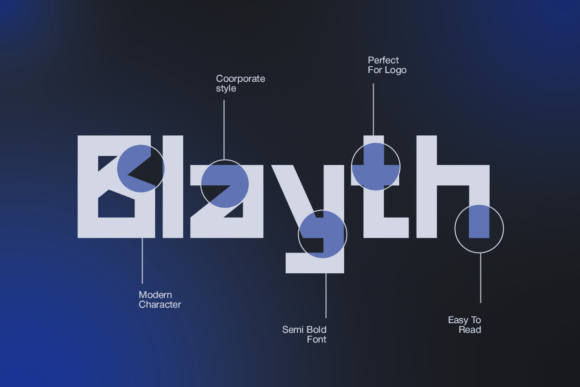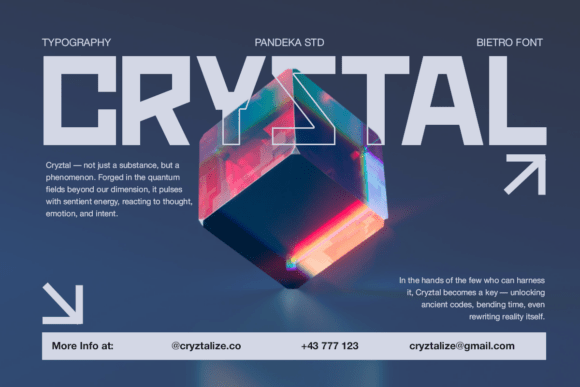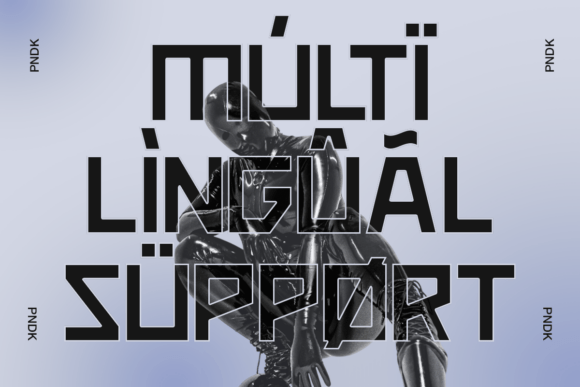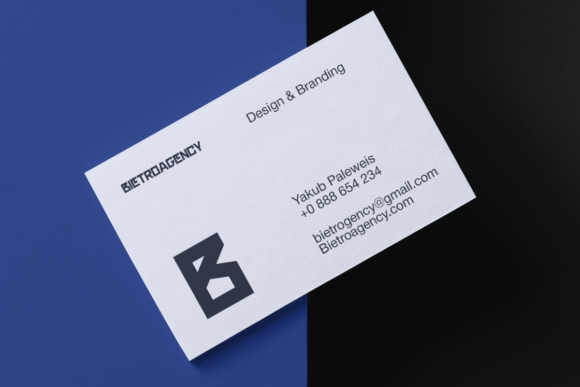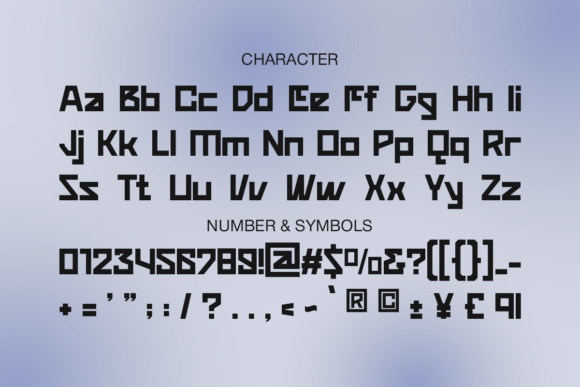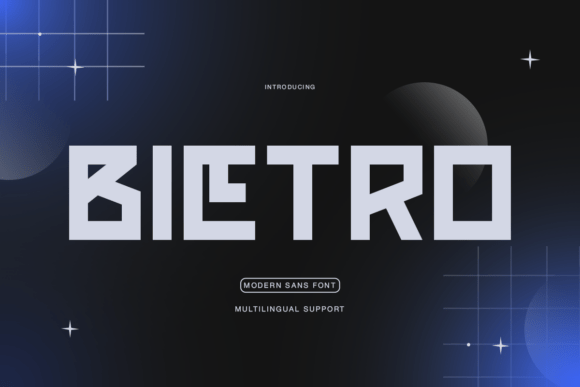
Bietro Font: The Ultimate Futuristic Modular Display Font
In the realm of typography, few fonts have managed to capture the essence of a futuristic, high-tech aesthetic quite like Bietro. This bold and experimental display typeface is inspired by digital grids, modular systems, and tech-forward designs, making it the perfect choice for designers and crafters looking to add a touch of futurism to their projects.
The Design Philosophy Behind Bietro
Bietro’s design is rooted in sharp corners, angular cuts, and a geometric structure that gives it a unique, cutting-edge feel. The font’s monospaced spirit and high-tech appeal make it an ideal choice for a wide range of applications, from sci-fi interfaces and gaming titles to streetwear branding and experimental visuals.
Key Features of Bietro Font
- Uppercase and Lowercase Letters: Bietro includes a comprehensive set of uppercase and lowercase letters, ensuring that you have all the characters you need to create stunning text-based designs.
- Numerals, Punctuation, and Symbols: The font also includes a range of numerals, punctuation marks, and symbols, giving you the flexibility to create complex designs and layouts.
- Multilingual Support: Bietro supports multiple languages, making it an excellent choice for designers and crafters working on international projects.
Use Cases for Bietro Font
Bietro’s versatility and unique aesthetic make it suitable for a wide range of applications, including:
- Futuristic Editorial Layouts: Add a touch of futurism to your editorial designs with Bietro’s bold, geometric structure.
- VR/AR Interfaces: Bietro’s high-tech appeal and monospaced spirit make it an excellent choice for VR/AR interface design.
- Posters and Print Materials: Create eye-catching posters and print materials with Bietro’s bold, attention-grabbing design.
- Gaming Titles and Interfaces: Bietro’s futuristic aesthetic makes it a natural fit for gaming titles and interfaces.
- Streetwear Branding: Add a touch of edginess to your streetwear branding with Bietro’s bold, geometric design.
Why Choose Bietro Font?
So, why should you choose Bietro font for your next project? Here are just a few reasons:
- Unique Aesthetic: Bietro’s futuristic design sets it apart from other fonts, ensuring that your designs stand out from the crowd.
- Versatility: Bietro’s versatility makes it suitable for a wide range of applications, from editorial design to gaming interfaces.
- High-Tech Appeal: Bietro’s high-tech appeal makes it an excellent choice for designers and crafters looking to create futuristic, cutting-edge designs.
In conclusion, Bietro font is a bold and experimental display typeface that is perfect for designers and crafters looking to add a touch of futurism to their projects. With its unique aesthetic, versatility, and high-tech appeal, Bietro is an excellent choice for a wide range of applications. Whether you’re working on a futuristic editorial layout, a gaming title, or a streetwear branding project, Bietro is sure to make a statement.